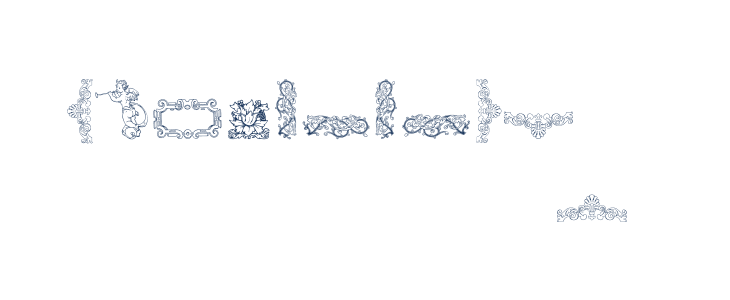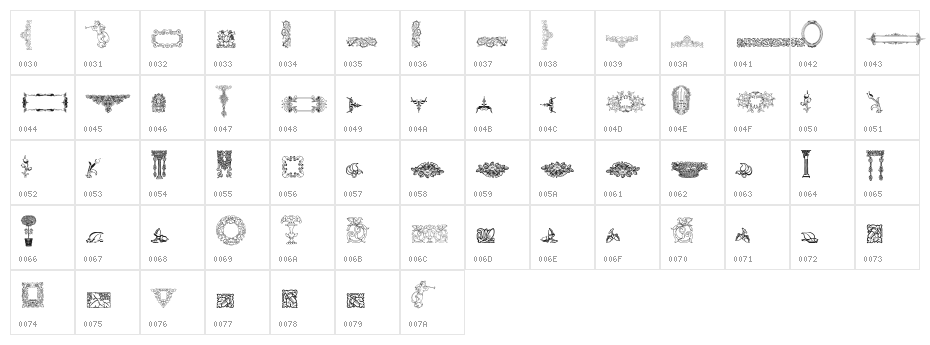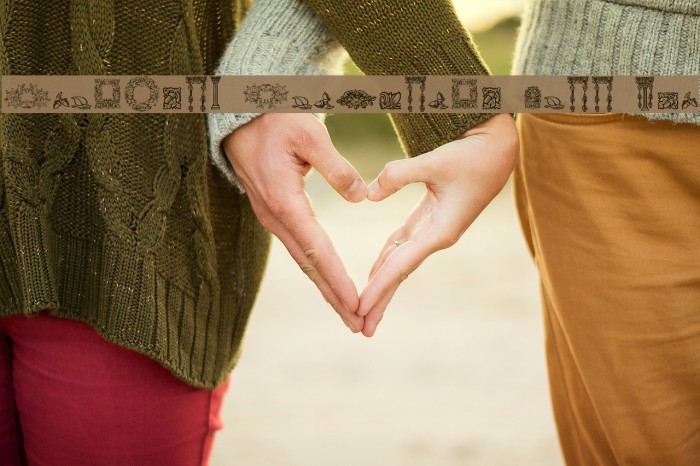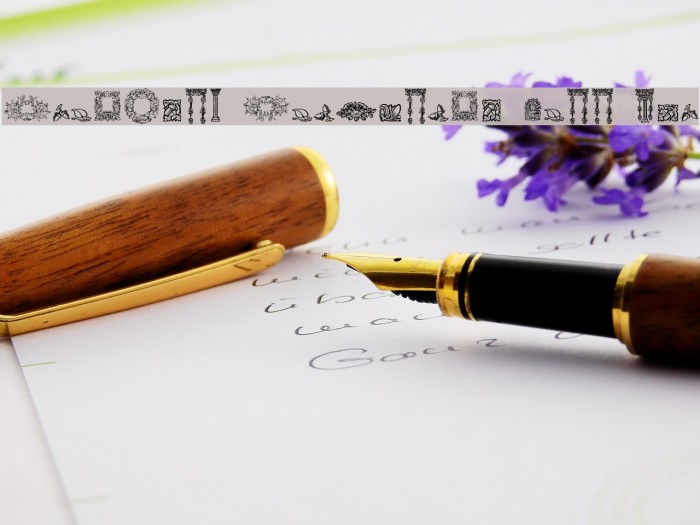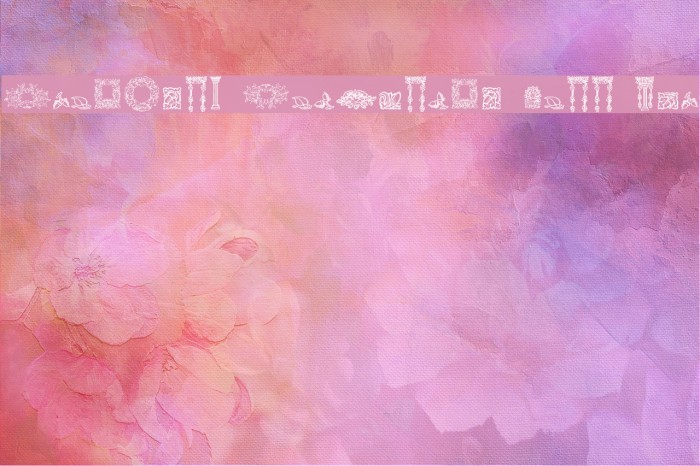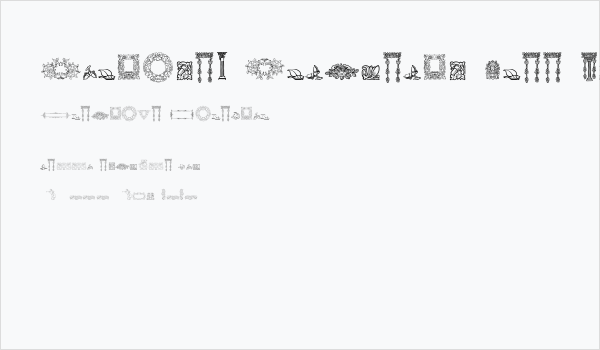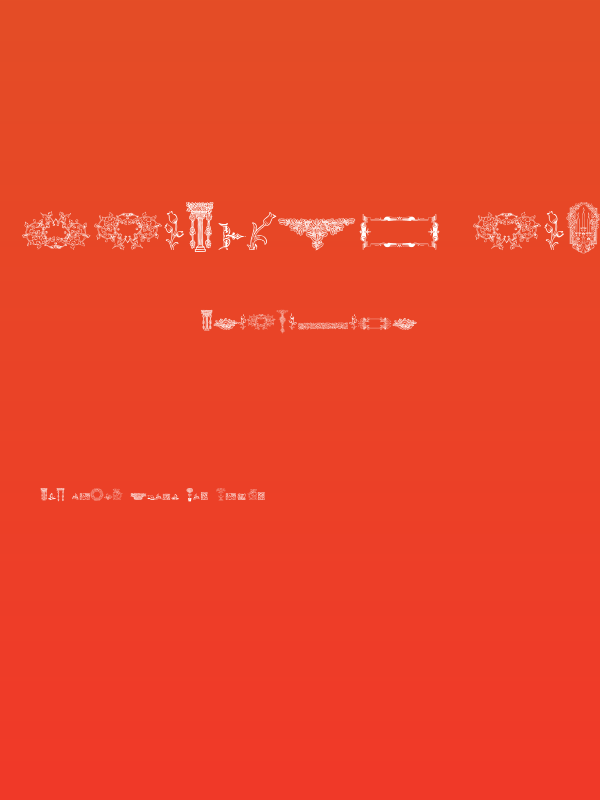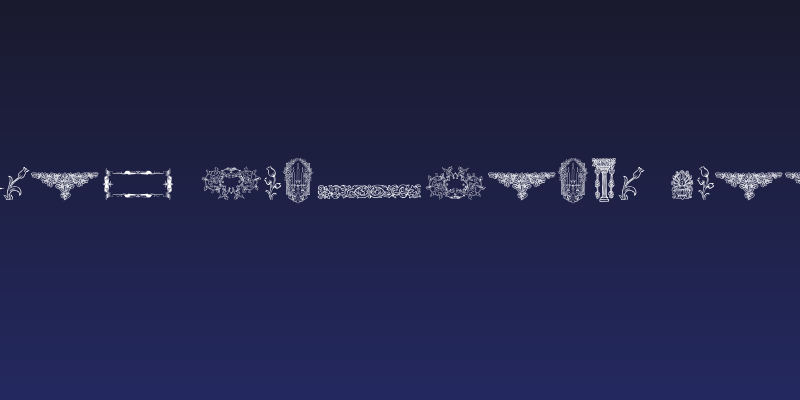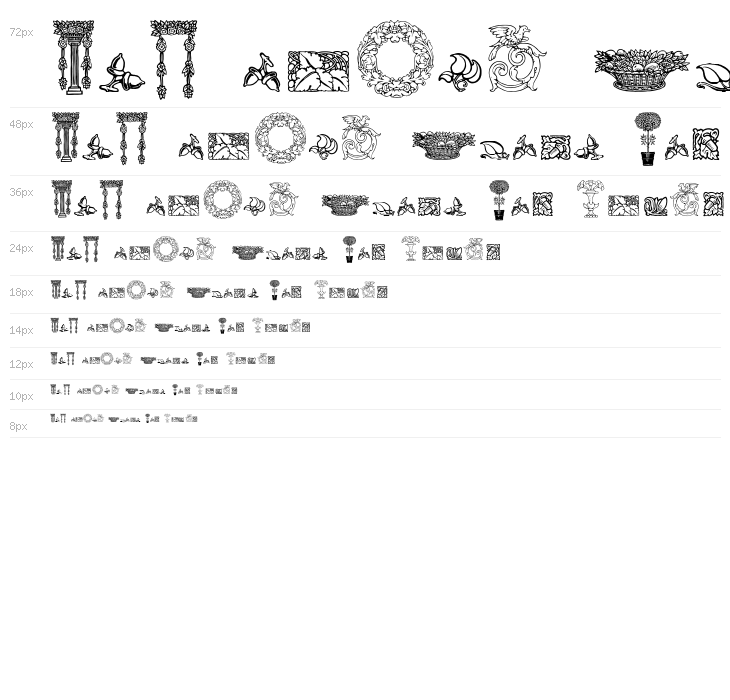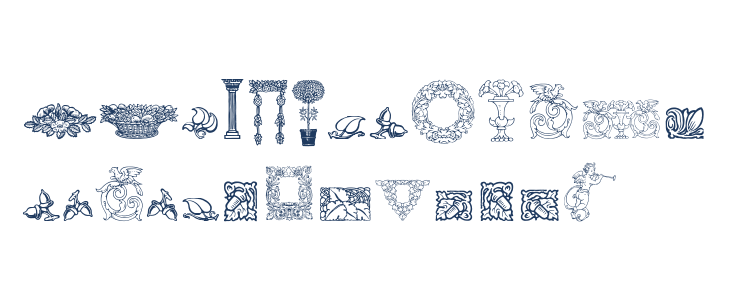
Mortised Ornaments Free Two Font
Mortised Ornaments Free Two Description
A collection of highly detailed, ornamental vector illustrations featuring floral, botanical, and classical motifs. Each character is a unique decorative element, including frames, borders, flourishes, and intricate embellishments reminiscent of vintage engravings.
Overall StyleVintage, Decorative
Use CaseBorders, frames, embellishments, decorative accents
Proposed ProjectsWedding invitations, certificates, decorative borders, vintage posters, book covers, packaging, and branding for luxury products.